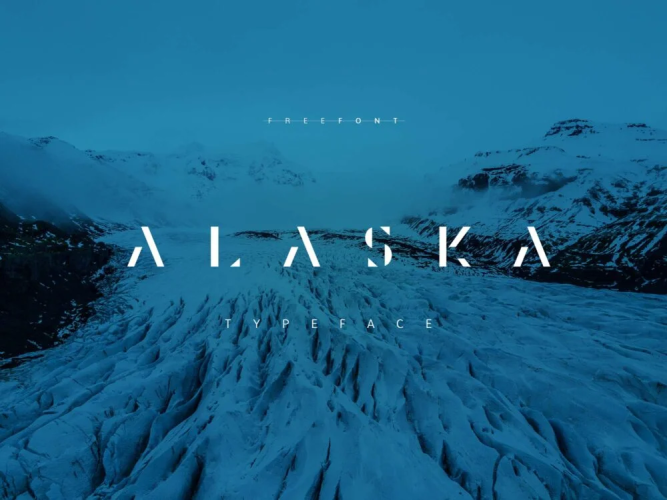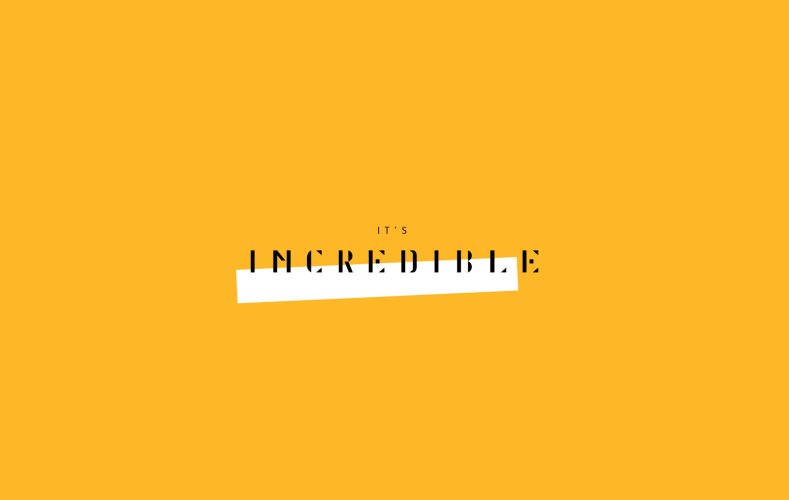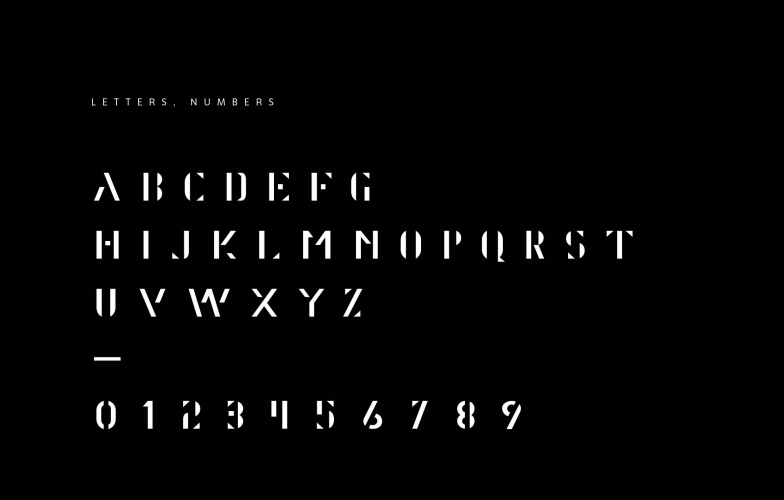
Alaska Font
Alaska Font is intended more for headings rather than body text. Pairing with other serif and sans serif fonts like Arial and Helvetica can give amazing results. Alaska is a free stylized abstract typeface for personal and commercial use. It consists of uppercase letters as well as numbers and glyphs. This typeface can be used in logo design, packaging, posters, print, and web projects. You can also integrate it in application development to create a modern high-tech design. Further, you can play with the letters to create different styles and various variations of the font.
Where Alaska Font works best
Headlines and titles
Alaska Font has enough character to carry a headline on its own; set it large and keep the supporting text plain.
Brand and product names
Short strings are where this typeface is strongest — a name, a label, a cover line.
Social and video graphics
Set Alaska Font over a flat colour or a quiet photograph so the letterforms stay the focus.
What kind of work does Alaska Font suit?
It sits in the Typeface group and reads as branding, free, modern, packaging. That makes it a candidate wherever those qualities help: headings, packaging, social graphics and brand work. Set it at the size you plan to use before deciding.